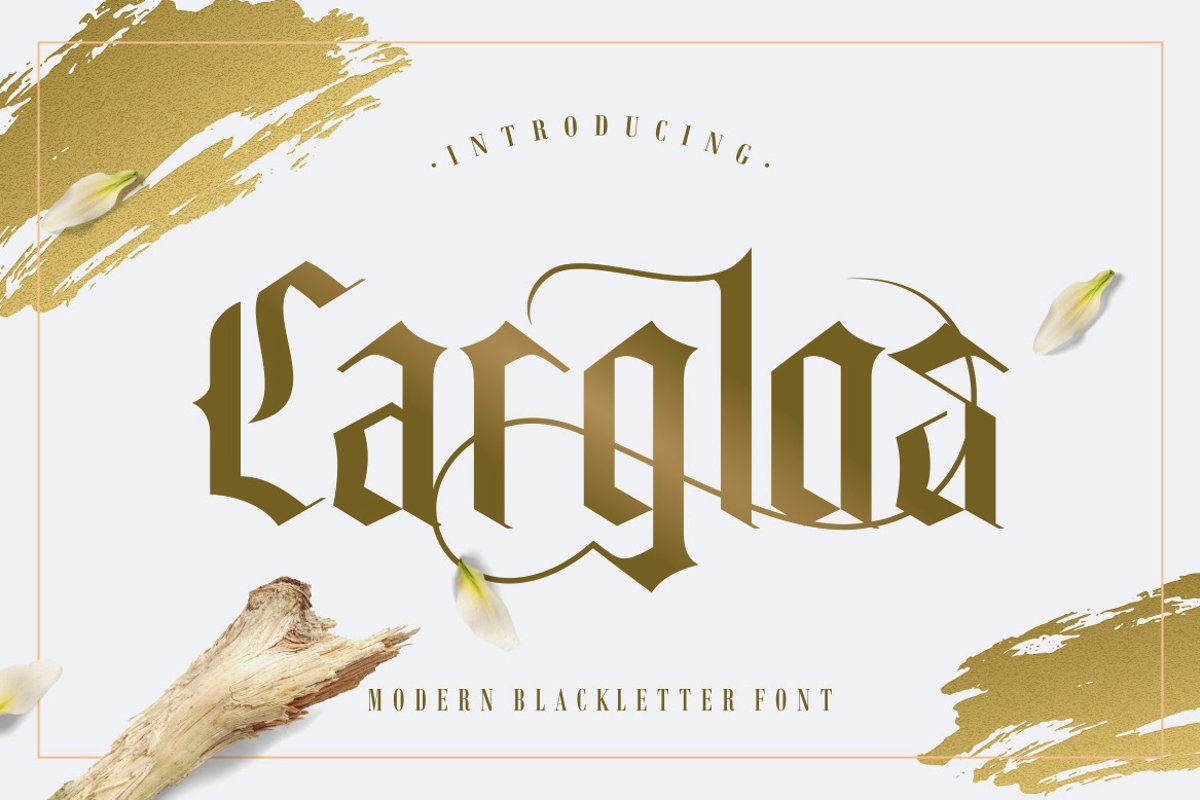
CARGLOS FONT
Carglos is a modern and clean blackletter font style. You can mix any alternate character with swashes, its very helpfull to make this font look stylish. This font is perfect to create any your vintage design project such us branding, logos, product packaging, invitation, qoutes, t-shirt, label, name card, badge, poster etc.